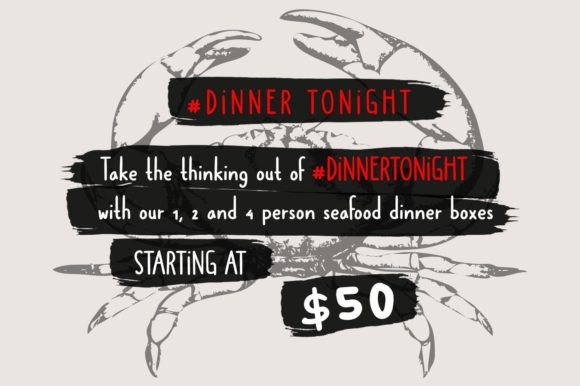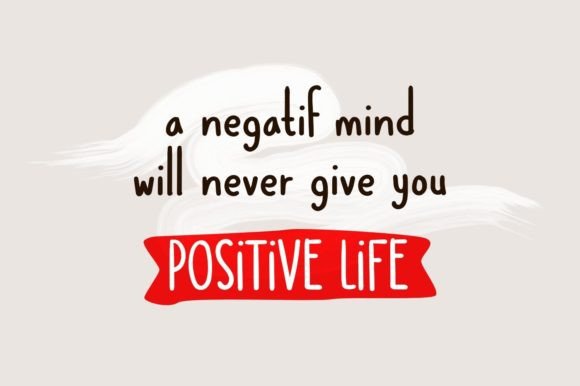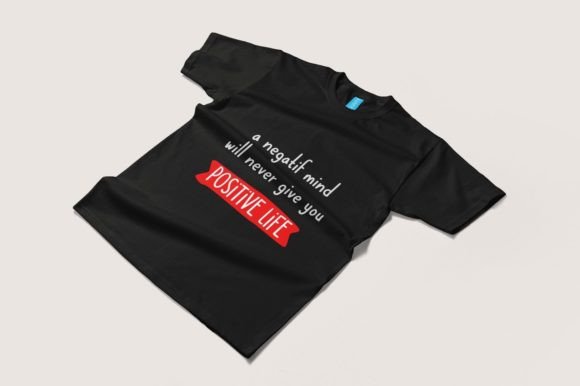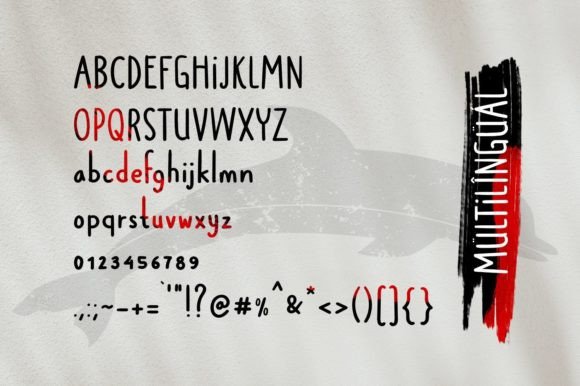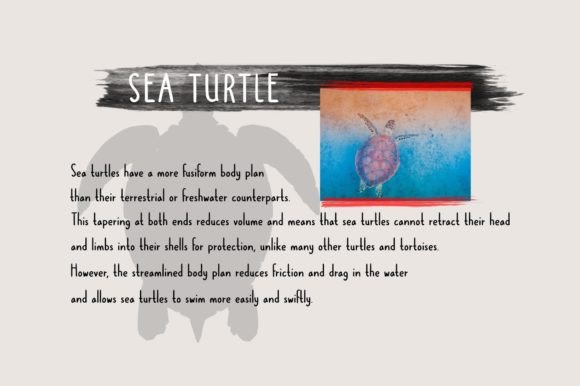
Dolphines Font: A Cute Handwritten Font for Your Creative Projects
Are you a designer or crafter looking for a unique and playful font to add a touch of personality to your visual projects? Look no further than Dolphines Font, a cute handwritten font that’s perfect for a wide range of applications. In this article, we’ll take a closer look at Dolphines Font, its features, and how you can use it to elevate your branding materials, merchandise, logos, quotes, posters, and more.
What is Dolphines Font?
Dolphines Font is a charming handwritten font that’s designed to bring a smile to your face. With its playful and carefree vibe, this font is ideal for creative projects that require a personal touch. Whether you’re working on a logo, brochure, or social media graphics, Dolphines Font is sure to make your design stand out from the crowd.
Key Features of Dolphines Font
- Cute and Playful: Dolphines Font has a unique and adorable style that’s perfect for designs that require a touch of whimsy.
- Handwritten: This font has a genuine handwritten feel that’s perfect for adding a personal touch to your designs.
- Versatile: Dolphines Font is suitable for a wide range of applications, including branding materials, merchandise, logos, quotes, posters, and more.
- Easy to Read: Despite its playful nature, Dolphines Font is easy to read, making it perfect for body text and headings.
Use Cases for Dolphines Font
Dolphines Font is an incredibly versatile font that can be used in a variety of creative projects. Here are some ideas to get you started:
- Branding Materials: Use Dolphines Font to create custom business cards, letterheads, and brochures that reflect your brand’s personality.
- Merchandise: Add a touch of personality to your merchandise, such as t-shirts, mugs, and tote bags, with Dolphines Font.
- Logos: Create a unique and memorable logo for your business or brand using Dolphines Font.
- Quotes and Posters: Use Dolphines Font to create inspiring quotes and posters that are sure to grab attention.
- Social Media Graphics: Add a touch of personality to your social media graphics, such as Facebook posts and Instagram stories, with Dolphines Font.
Tips for Using Dolphines Font
Here are some tips for getting the most out of Dolphines Font:
- Pair with Other Fonts: Experiment with pairing Dolphines Font with other fonts to create a unique and interesting contrast.
- Use Different Colors: Try using different colors to add visual interest to your designs and make them stand out.
- Experiment with Sizes: Play around with different font sizes to create a hierarchy of information and add emphasis to your designs.
Dolphines Font is a unique and versatile font that’s perfect for designers and crafters looking to add a touch of personality to their creative projects. With its cute and playful style, this font is sure to make your designs stand out from the crowd. Whether you’re working on branding materials, merchandise, logos, quotes, posters, or social media graphics, Dolphines Font is a great choice. So why not give it a try and see how it can elevate your designs?